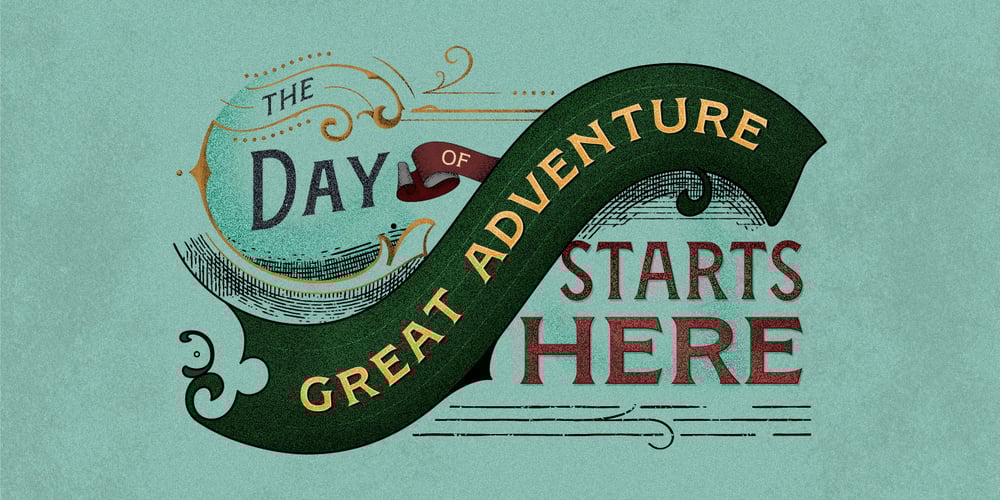
Figuera Variable Font Family was designed by Adam Fathoni Haris and published by Adam Fathony. Figuera Variable contains 15 styles and family package options. Figuera Variable is inspired by Victorian style serif typefaces. With a different width and weight you can make your design more fluid using only a single font family. These new fonts come with a new feature allowing you to create a variable widths and weights without using additional fonts. There are some limitations on the use of the new variable features because of the software compatibility, and currently requires Adobe CC 2018 or later. Creating webfonts using these variables is a fantastic feature.